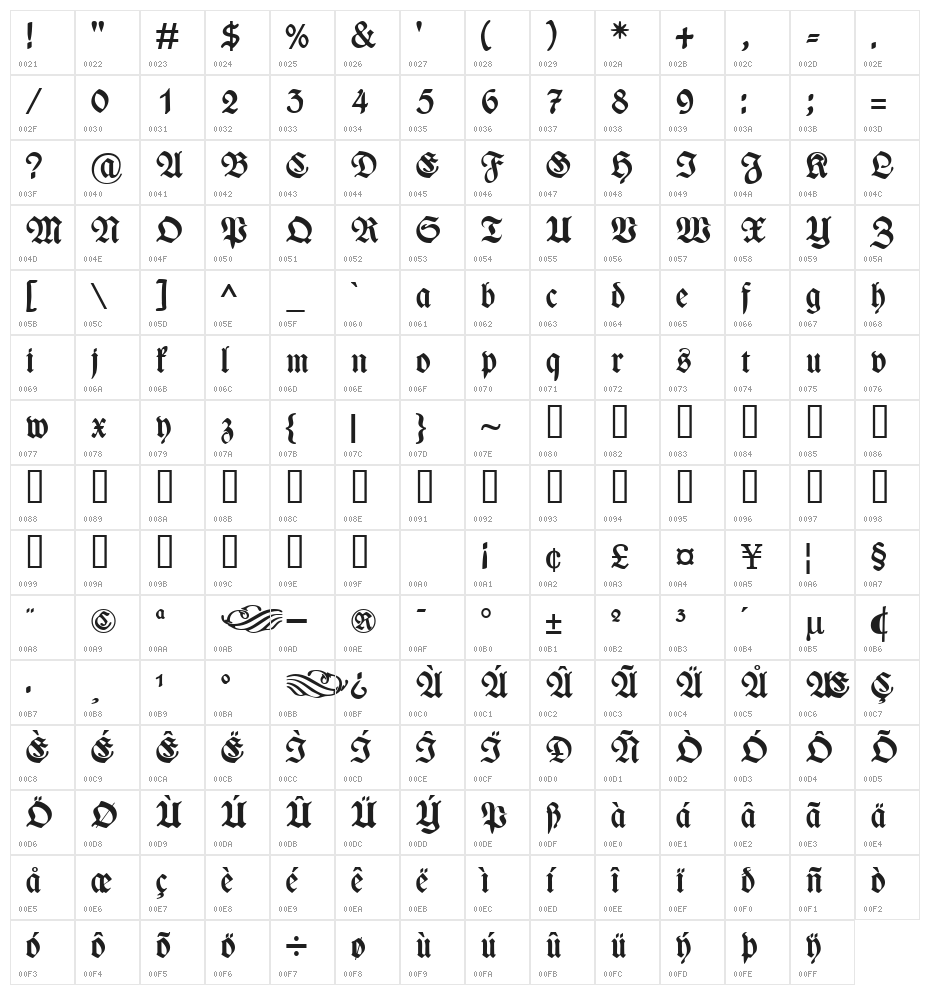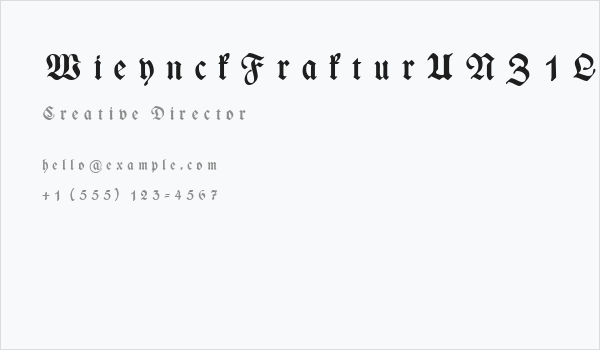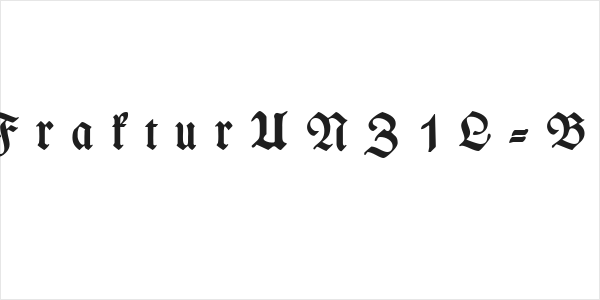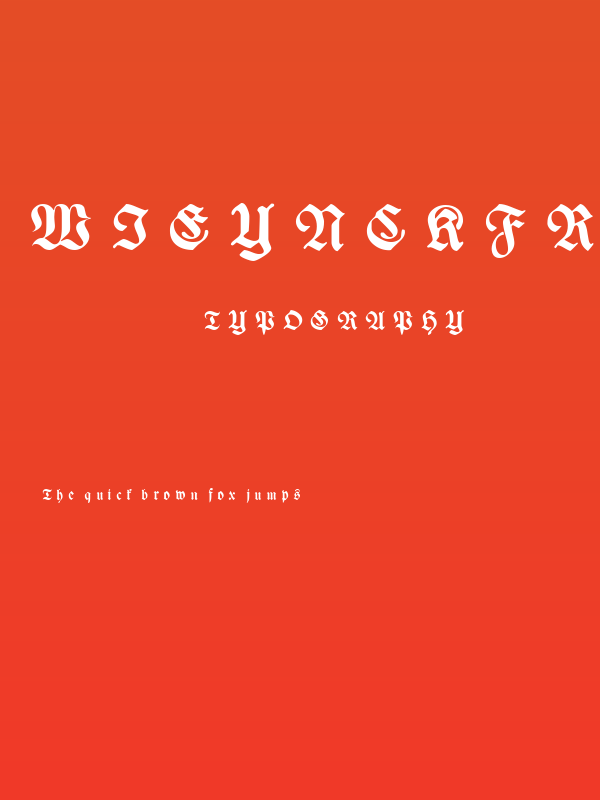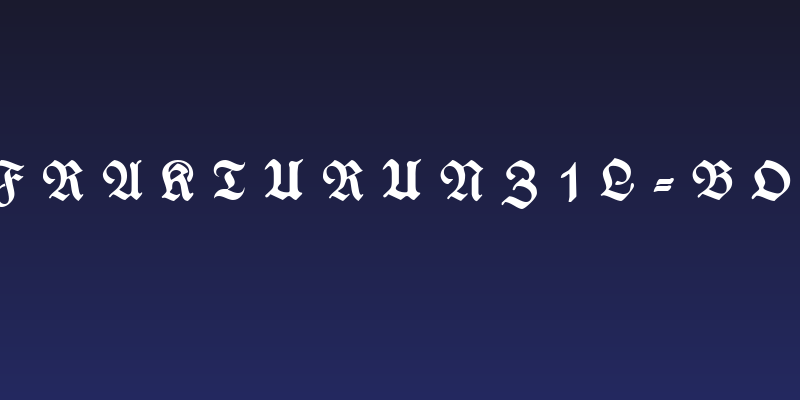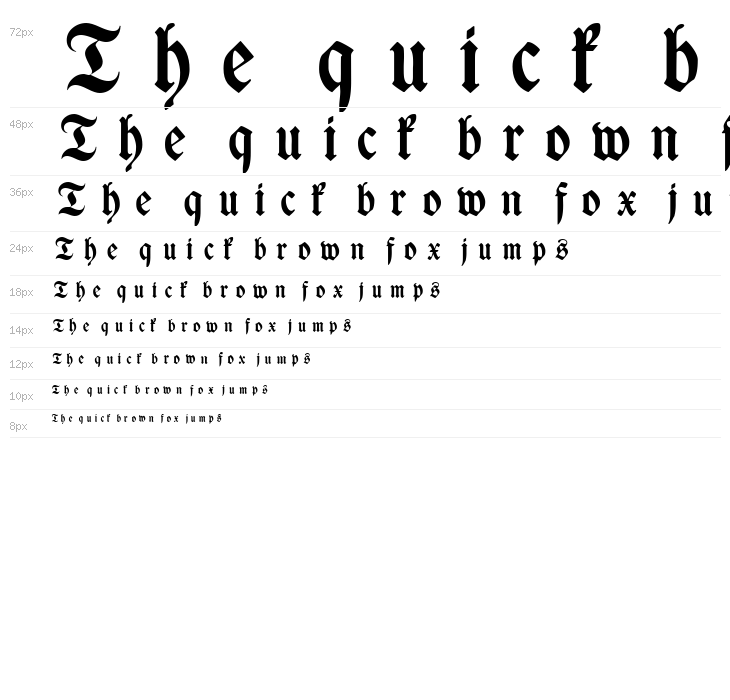
WieynckFrakturUNZ1L-BoldItalic Font
WieynckFrakturUNZ1L-BoldItalic Description
This font exhibits a classic blackletter style, characterized by its intricate and ornate design. The letters are bold and italicized, with sharp, angular lines and elaborate flourishes that give it a distinct medieval appearance. The uppercase letters are particularly decorative, with unique embellishments that enhance their gothic aesthetic. The lowercase letters maintain the same level of detail, ensuring consistency throughout the typeface. Numbers and special characters are also included, each designed to match the overall style. This font's historical and artistic qualities make it a standout choice for projects requiring a touch of elegance and tradition.